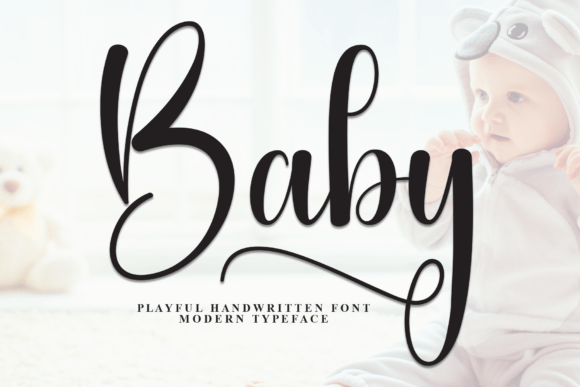
Brighten Up Your Designs with a Sweet Twist
Have you ever been brainstorming a design and suddenly, the perfect font pops into your head? For me, it was during a lazy Sunday afternoon, surrounded by half-finished projects and scattered papers. I stumbled upon a quirky little font that instantly put a smile on my face – and that’s when I fell in love with the Baby Pumpkin Font.
This charming handwritten display font is designed to add a friendly and approachable touch to your designs. Whether you’re working on wedding invitations, greeting cards, or any other project that needs a dash of whimsy, the Baby Pumpkin Font is the perfect companion. Its playful personality and endearing style make it a valuable addition to any designer’s toolkit.
Baby Pumpkin Font Key Features
- Font Family: Baby Pumpkin Font is a unique, hand-drawn font designed to resemble a baby pumpkin, making it ideal for fall and harvest-themed designs.
- Character Set: Includes a comprehensive set of characters, including uppercase and lowercase letters, numbers, and punctuation marks, making it suitable for various design applications.
- Unique Characteristics: Features a distinctive, playful style with rounded edges and soft lines, giving it a warm and inviting feel, perfect for creating a cozy atmosphere in designs.
Baby Pumpkin Font Review
Overall, I think Baby Pumpkin Font is a cute and playful script font. It’s perfect for adding a whimsical touch to your designs. ✨ The font’s rounded edges and gentle curves make it feel soft and approachable, which is great for creating a welcoming atmosphere. ✨ The font’s legibility is also quite good, making it suitable for both body text and headings.
- ✨ The font’s unique and quirky design makes it stand out from more traditional script fonts.
- ✨ The font’s legibility is good, making it suitable for a wide range of designs.
- ✨ The font’s rounded edges and gentle curves make it feel soft and approachable.
- ⚠️ The font may not be suitable for formal or professional designs, as it feels quite playful and whimsical.
- ⚠️ The font may not be as versatile as some other script fonts, as it’s quite specific to a certain style or aesthetic.
- ⚠️ The font’s italic and bold styles may not be as well-designed as the regular style.
Overall, I think Baby Pumpkin Font is a fun and playful script font that’s perfect for adding a whimsical touch to your designs. While it may have some limitations, it’s a great choice for designers who want to create a welcoming and approachable atmosphere in their designs.
The Baby Pumpkin Font is ideal for:
- Baby shower invitations and decorations.
- Children’s party graphics and printables.
- Food and dessert labels with a whimsical touch.
To get the most out of the Baby Pumpkin Font:
- Pair it with bold, playful graphics and illustrations.
- Use it for titles and headings to add visual interest.